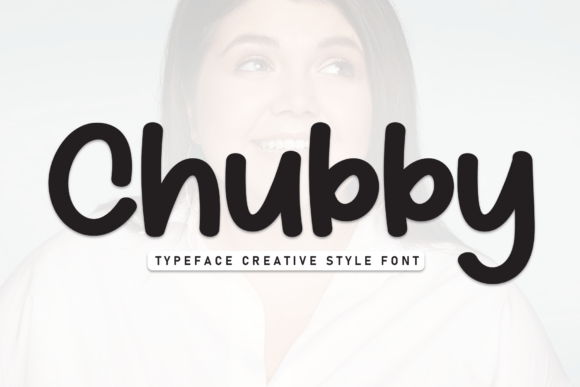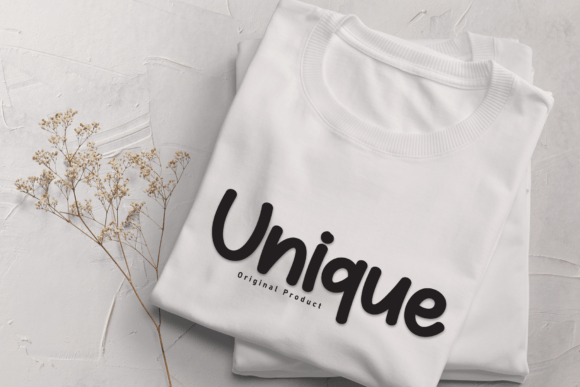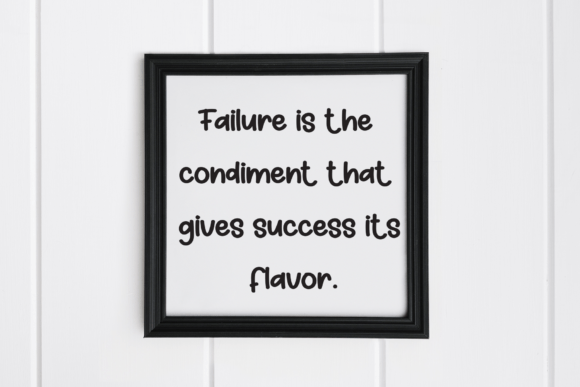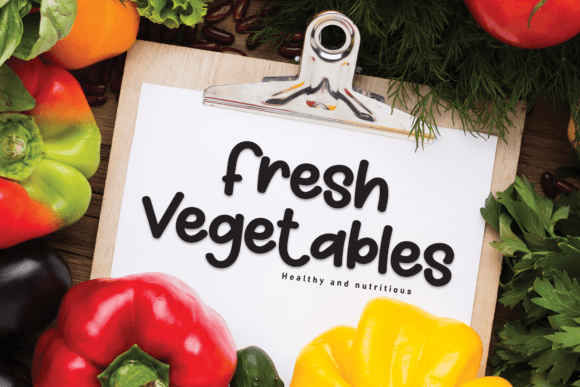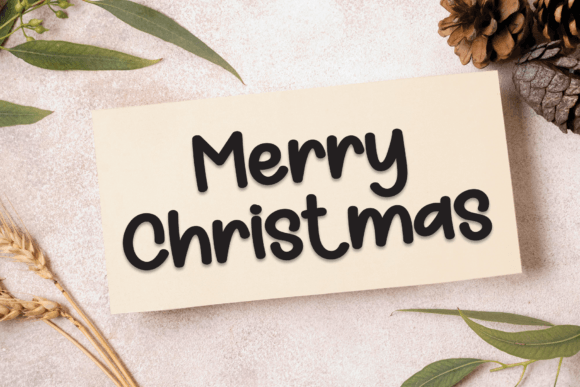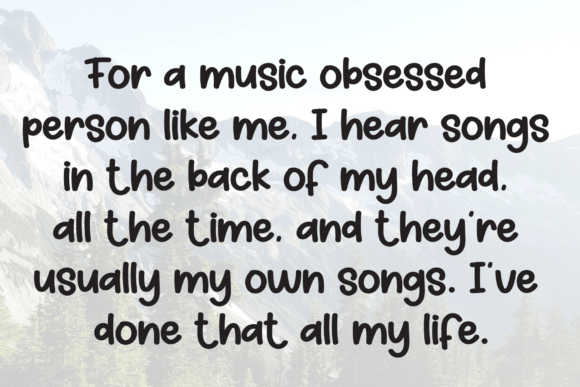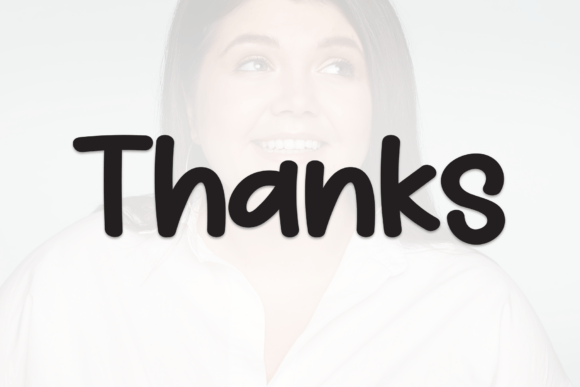
The Perfect Partner for Your Next Design Project
Have you ever been stuck on a design project, staring at a blank page, trying to bring your creative vision to life? We’ve all been there. Sometimes, all it takes is the right tool to spark that initial idea and get the creative juices flowing. That’s where the Chubby Font comes in – a sweet and friendly handwritten font that’s about to become your new best friend.
Chubby Font is designed to be a versatile and natural addition to your designs, making it perfect for a wide range of projects. From greeting cards to social media graphics, its unique style will give your work that extra oomph. Whether you’re a seasoned designer or just starting out, Chubby Font is a valuable asset to have in your toolkit. With its endless possibilities, the only limit is your imagination!
Key Features of Chubby Font
- Size: The font family includes various weights, ranging from Extra Light to Extra Bold, offering flexibility for designers and typographers.
- Unique Characteristics: The font’s distinctive rounded edges and soft curves give it a friendly, approachable feel, making it suitable for children’s books, food packaging, and other applications where a warm tone is desired.
- Font Metrics: The font’s x-height is optimized for readability, with a carefully crafted line spacing and kerning system to ensure clear text and headings.
Chubby Font Review
Overall, I think “Chubby Font” is a great addition to any design project. It’s got a certain charm to it, and the designers have done a fantastic job of capturing that feel. ✨ Here are a few things that really stand out:
- The unique blend of whimsy and playfulness makes it perfect for projects that need a little extra personality.
- The font is incredibly versatile, working well in both digital and print applications.
- The designers have included a wide range of weights and styles, giving users plenty of options for customizing their design.
However, there are a few limitations to keep in mind: ⚠️
- The font may be a bit too bold for some projects, so be careful not to overdo it.
- The designers could have included a few more international character sets to make it more accessible to users worldwide.
Overall, I’d say “Chubby Font” is a solid choice for designers looking for a fun, playful font. It’s not perfect, but it’s definitely worth checking out. Just be aware of its limitations, and you’ll be all set to create some amazing designs.
Common use cases for Chubby Font include:
- Children’s products and packaging
- Playful and whimsical designs
For best results, use Chubby Font in conjunction with bold colors and playful graphics.